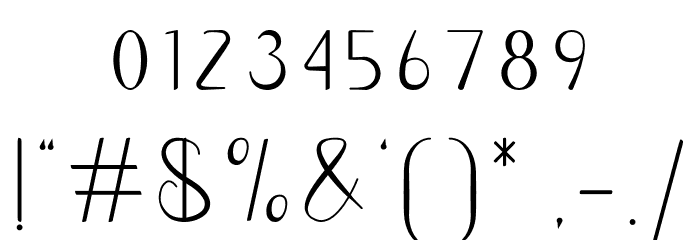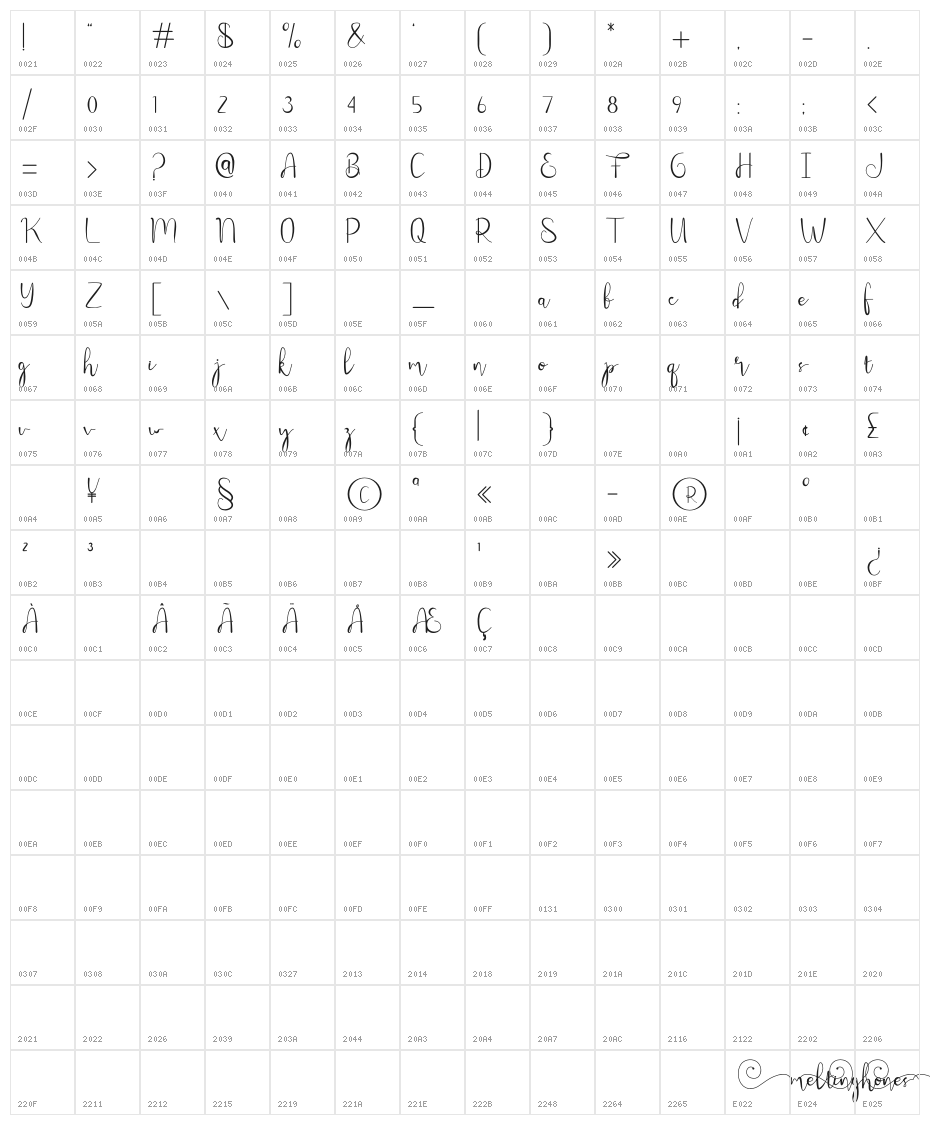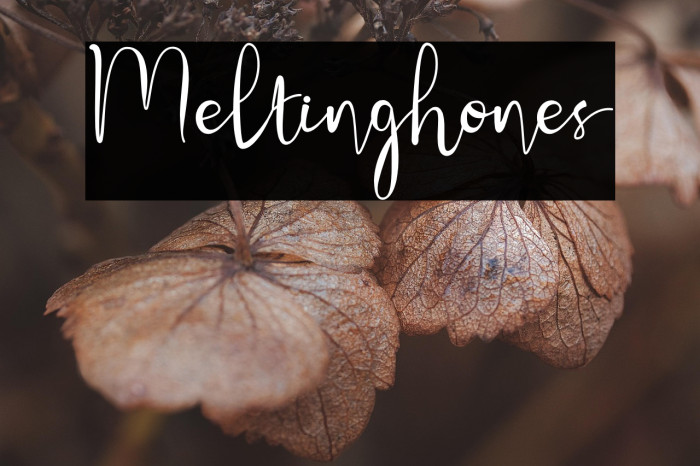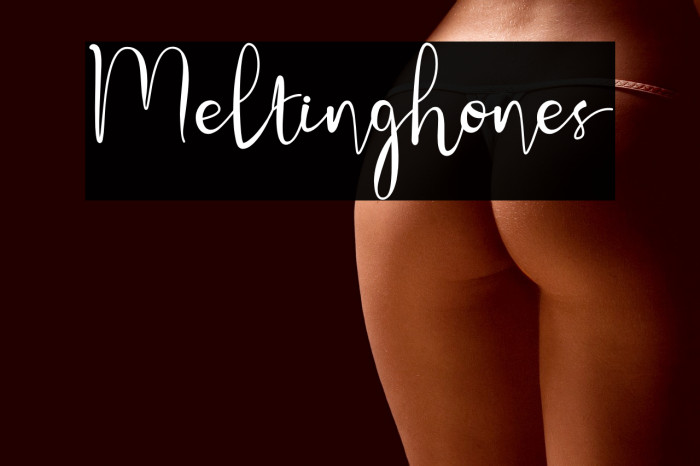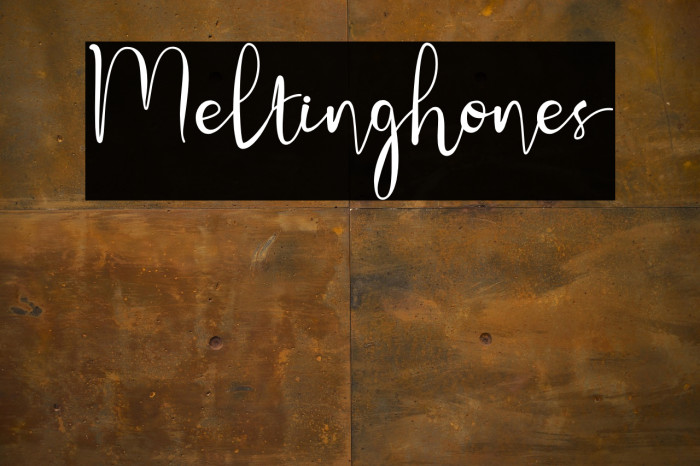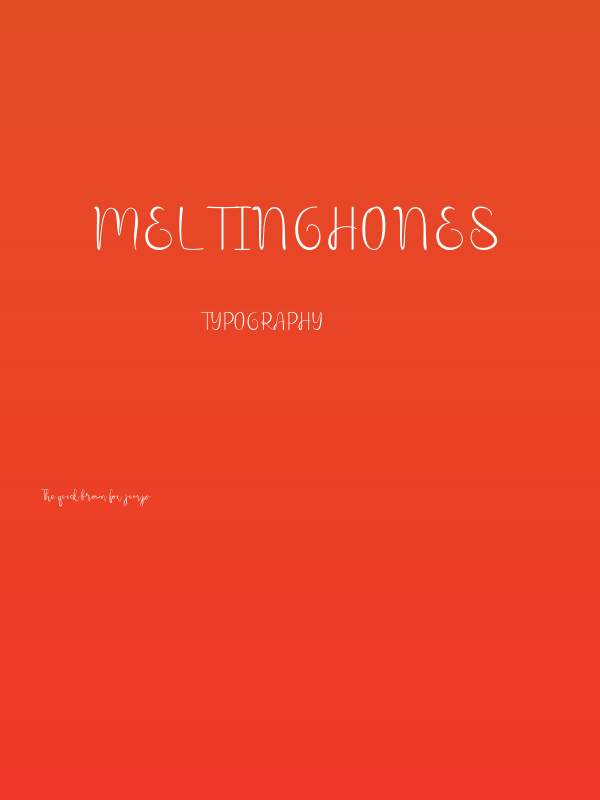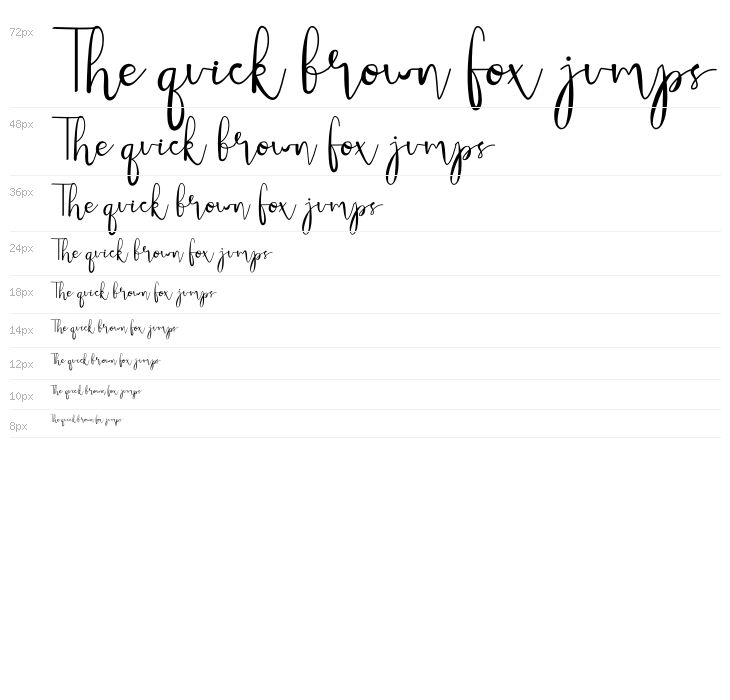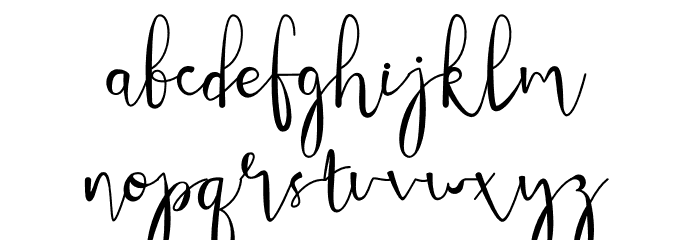
Meltinghones Font
Meltinghones Description
This font features a playful and whimsical style, combining elements of both script and sans-serif characteristics. The uppercase letters have a unique, flowing design with subtle curves and loops, giving them a sense of movement and elegance. The lowercase letters are more cursive, with smooth, connected strokes that enhance the font's handwritten feel. The numbers maintain a consistent style with the letters, offering a cohesive look across all characters. Special characters are designed with the same playful flair, ensuring they integrate seamlessly with the rest of the font. This font's overall appearance is both modern and artistic, making it suitable for creative projects.